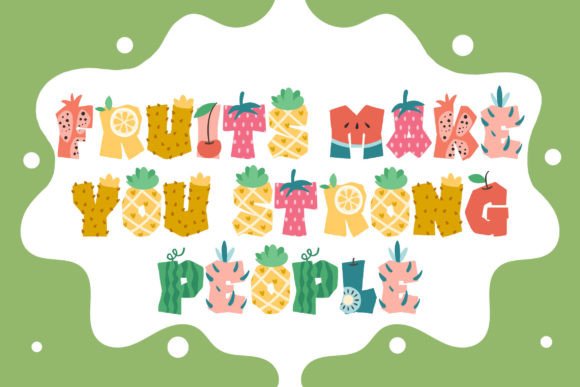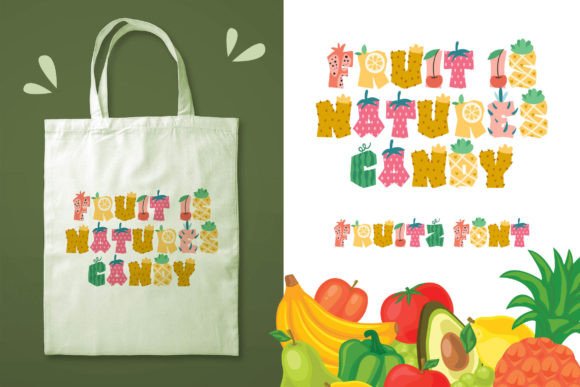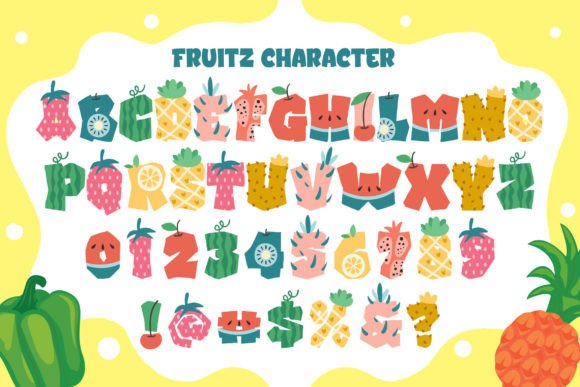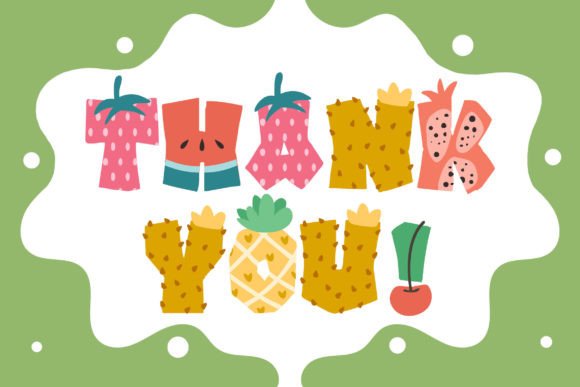
Introducing Fruitz Font: Unleash Your Creativity with this Playful SVG Color Font
Are you searching for a font that can add a dash of fun and creativity to your designs? Look no further! Fruitz Font is here to revolutionize your typography with its playful and vibrant style. Inspired by the world of playful typography, this SVG color font is perfect for designers and crafters who want to create eye-catching and imaginative designs.
What is Fruitz Font?
Fruitz Font is a carefully crafted SVG color font that combines aesthetics and playfulness. Its unique design makes it an ideal choice for a wide range of projects, from book covers and posters to packaging, merchandise, and logotypes. With Fruitz Font, you can add a pop of color and personality to your designs, making them stand out from the crowd.
Key Features of Fruitz Font
- SVG Color Font: Fruitz Font is an Opentype-SVG font, which means it’s a color font that can be used in compatible software to create stunning designs.
- Playful Typography: Inspired by playful typography, Fruitz Font is designed to bring fun and creativity to your designs.
- High Aesthetic Level: With a focus on aesthetics, Fruitz Font is perfect for designs that require a high level of visual appeal.
Use Cases for Fruitz Font
Fruitz Font is a versatile font that can be used in a variety of projects, including:
- Book Covers: Add a touch of playfulness to your book covers and make them stand out on the shelves.
- Posters: Create eye-catching posters that grab attention with Fruitz Font’s vibrant and colorful design.
- Packaging: Use Fruitz Font to add a pop of color and personality to your product packaging.
- Merchandise: Design unique and playful merchandise, such as t-shirts, mugs, and tote bags, with Fruitz Font.
- Logotype: Create a memorable and playful logotype for your brand with Fruitz Font.
Why Choose Fruitz Font?
Fruitz Font is the perfect choice for designers and crafters who want to add a dash of fun and creativity to their designs. With its playful and vibrant style, Fruitz Font can help you:
- Stand out from the crowd: Create unique and eye-catching designs that grab attention.
- Inspire creativity and imagination: Use Fruitz Font to spark creativity and imagination in your designs.
- Save time: With Fruitz Font, you can quickly create stunning designs without spending hours on typography.